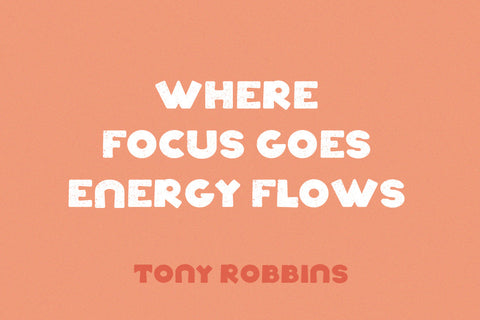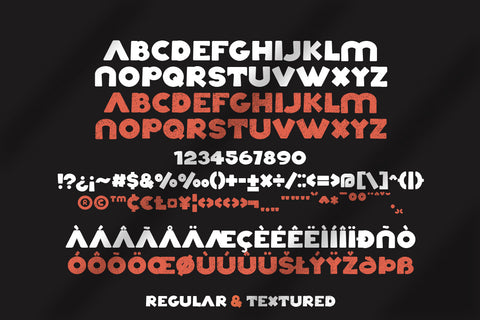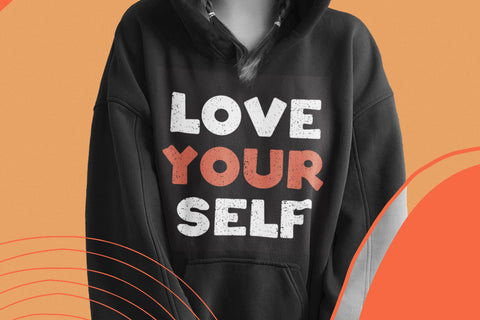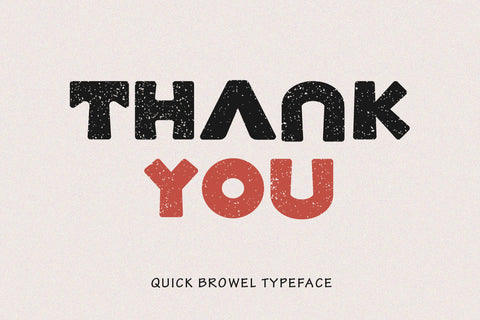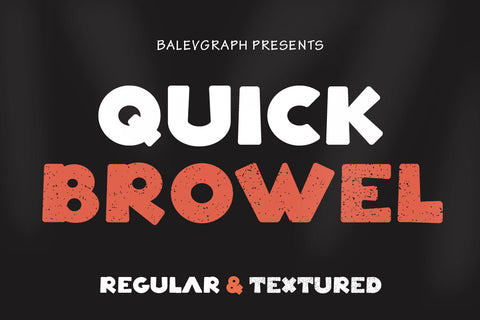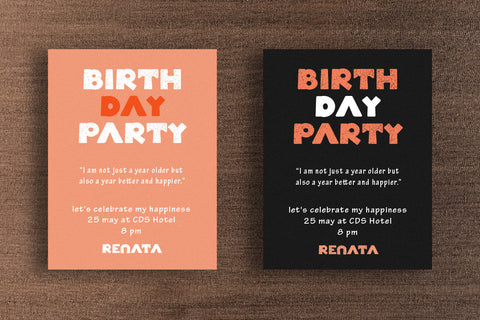
Quick Browel A Bold & Rough Textured Display Font
Quick Browel is a bold and rough textured display font. No matter the topic, this font will be an incredible asset to your fonts’ library, as it has the potential to elevate any creation.
– Numerals & Punctuations
– Multilingual support